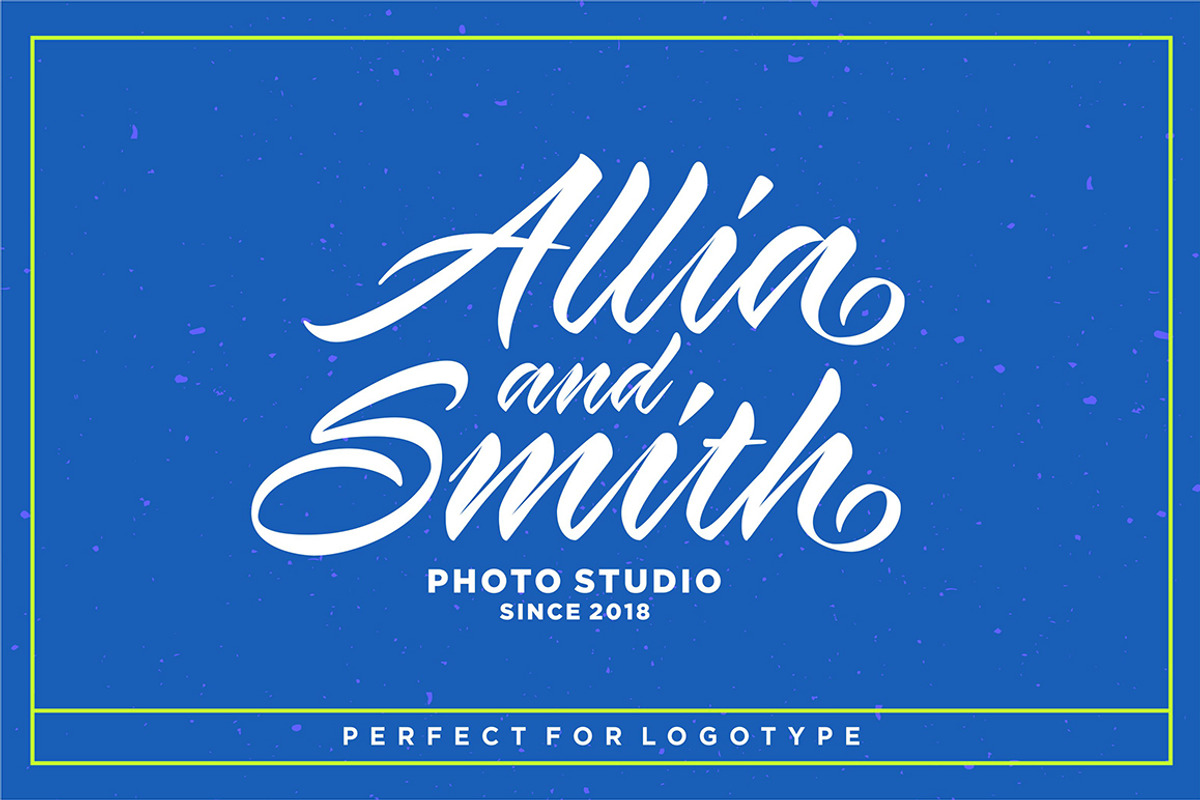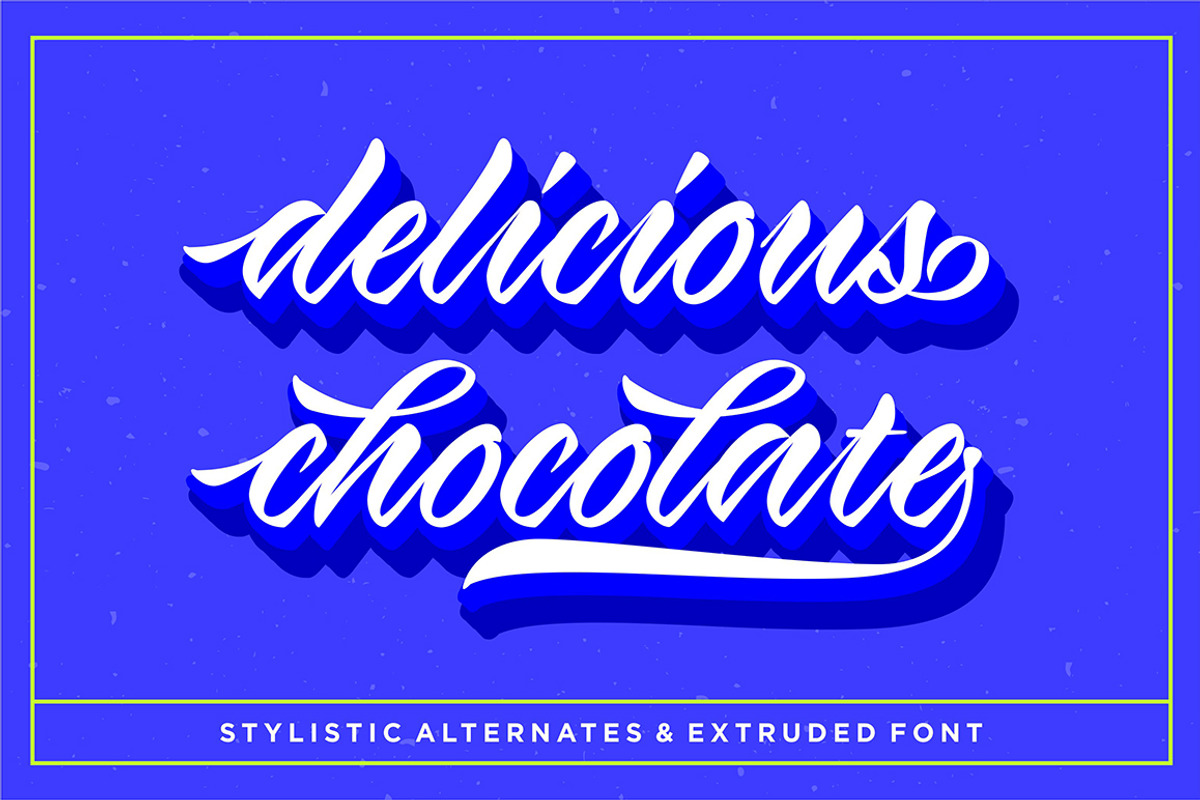
Virmana Script
Say hello to Virmana Script a retro calligraphy brush stroke font, perfect for use in logotypes and more! This font has a poppy, bold appeal and comes with three styles so you can layer for an incredibly stylish look to your projects. Features Open type feature, stylistic alternates, ligatures and International support for most Western Languages. You need a program that supports OpenType features such as Adobe Illustrator CS, Adobe Photoshop CC, Adobe Indesign.
Perfect to creating modern designs like logos, branding, posters, social media, wedding invitation, headline, apparel design and more. All lowercase letters include stylistic alternates, beginning & end swashes, that makes the font look fabulous!
Virmana Script includes (total 3 fonts):
- Virmana Regular
- Virmana Extrude 1
- Virmana Extrude 2